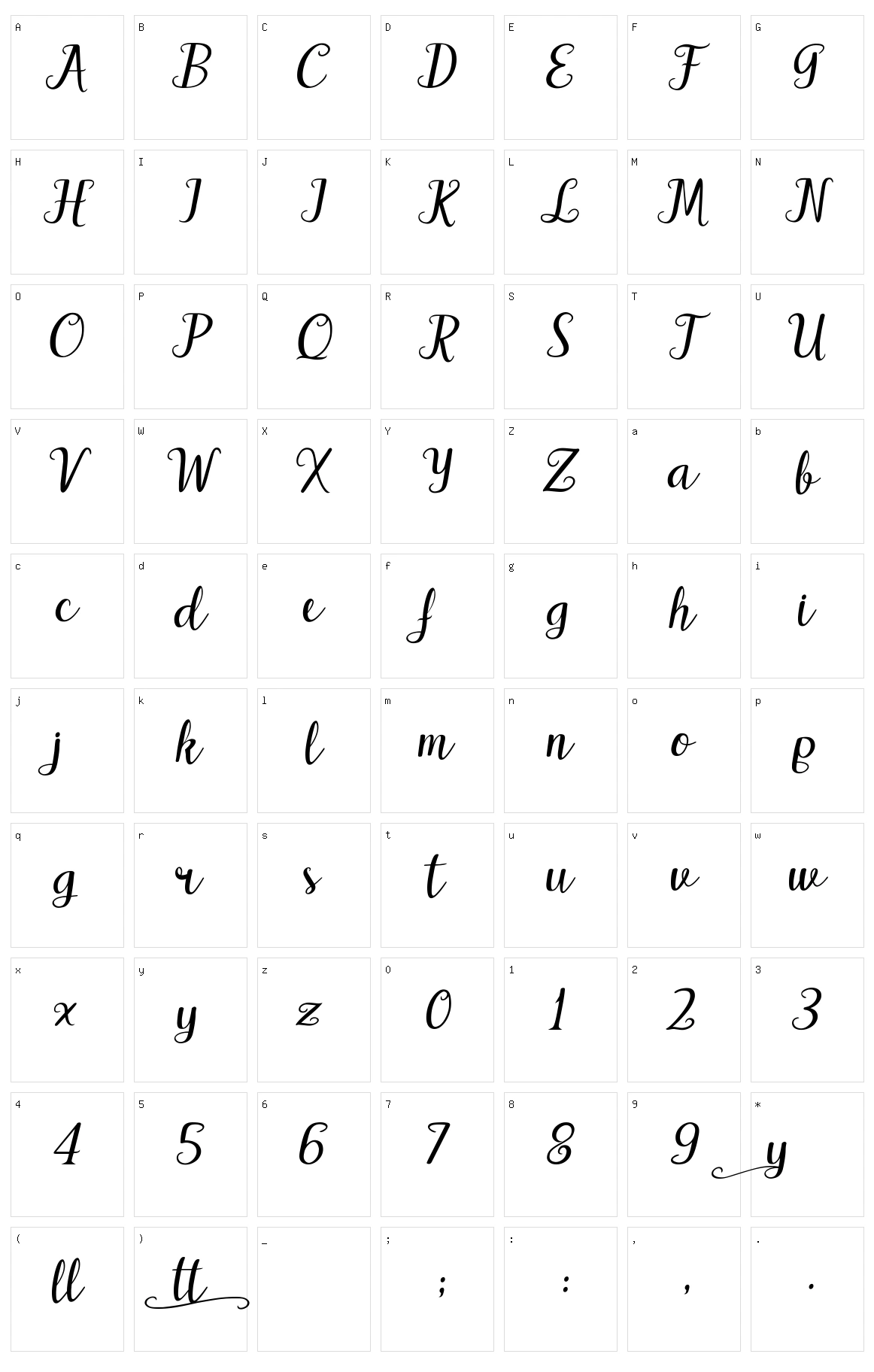
This font is partial.
The complete version include:
- Startings and Endings for lowercases by using [ ] { and }.
- Alternates by using Open Type Features or PUA for & f g j p y r s v and w.
- Ligatures by using Open Type Features or PUA for cc ee ff gg ll and tt.
- 5 swashes by using Open Type Features or PUA.